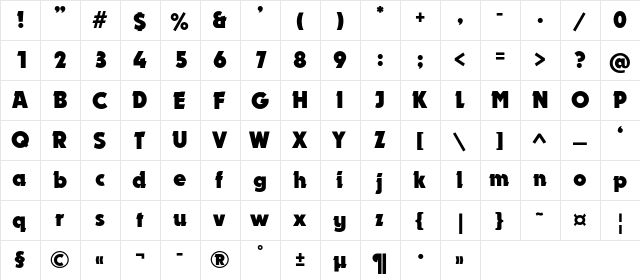
DynarC Bold
Design Context for DynarC Typeface
DynarC offers clean, dependable letterforms without strong stylistic allegiance, making it a practical choice for designers who need flexibility. The heavy weight commands attention and anchors typographic hierarchies.